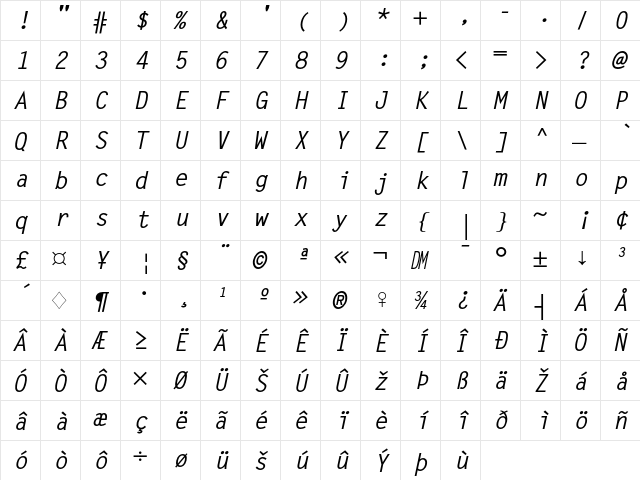
Letter Gothic Bold Slanted Font Preview
Letter Gothic Bold Slanted
Design Context for Letter Gothic Typeface
Letter Gothic has the quiet confidence of well-executed sans-serif typography: versatile, unobtrusive, and dependable at any size. The slanted form adds forward momentum and visual energy. The heavy weight commands attention and anchors typographic hierarchies.
A strong choice for UI design, app interfaces, bold signage, and corporate brand systems.
Font Pairing: Use Letter Gothic for headlines alongside a lighter-weight sans or serif for body copy to establish clear visual hierarchy.
Pro Tip: Pair Letter Gothic with a display or serif font for headlines — its neutral character makes it an excellent supporting player in complex typographic systems.